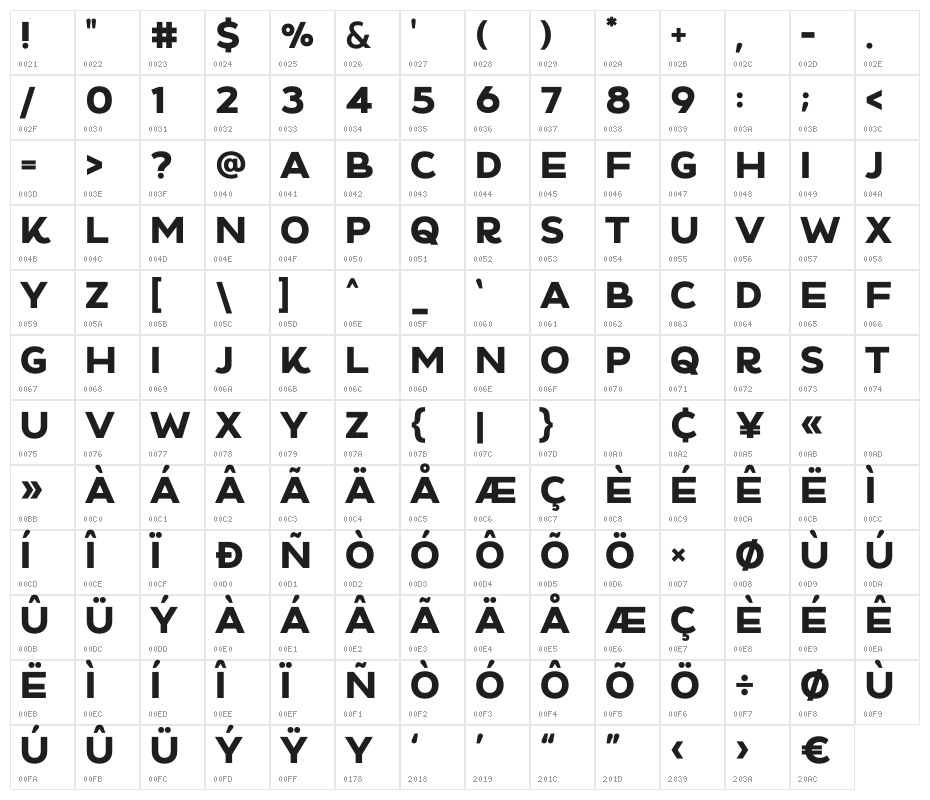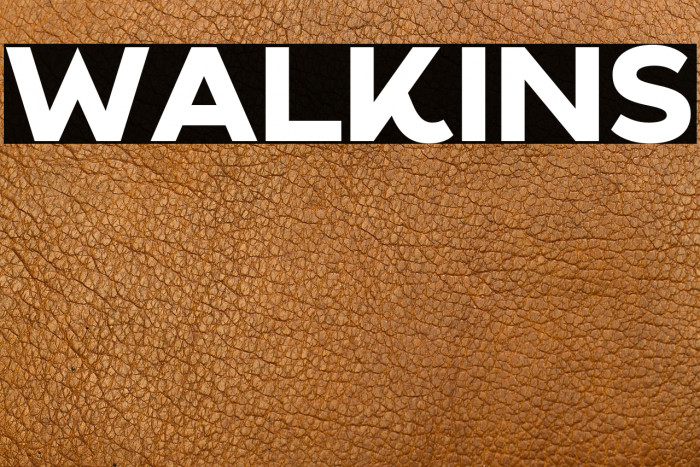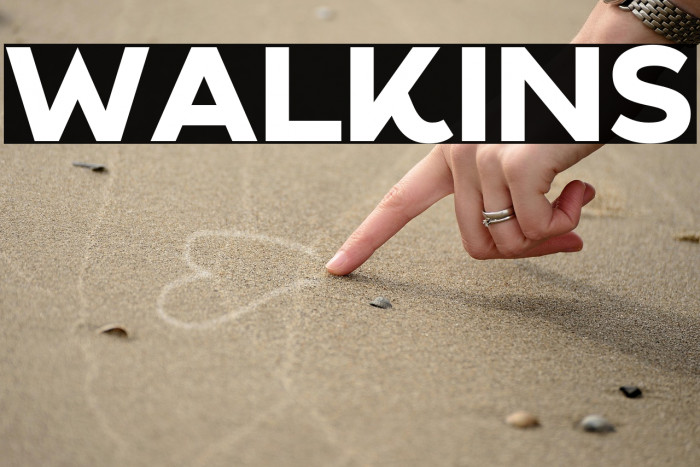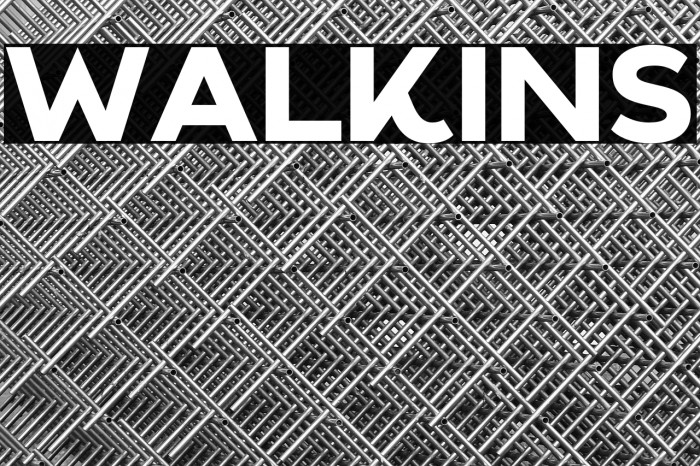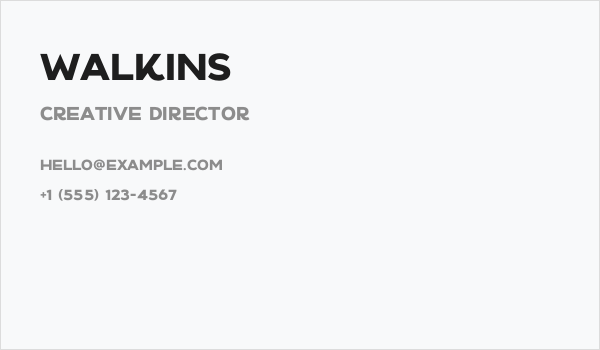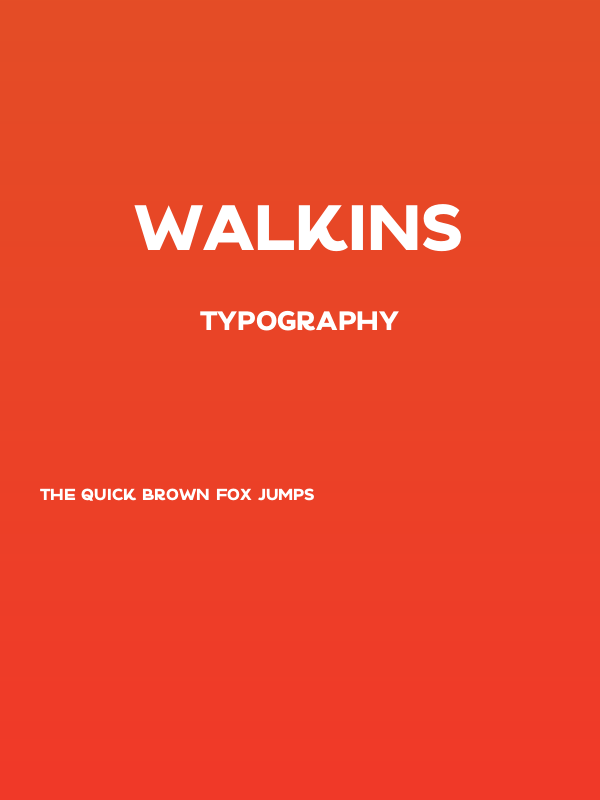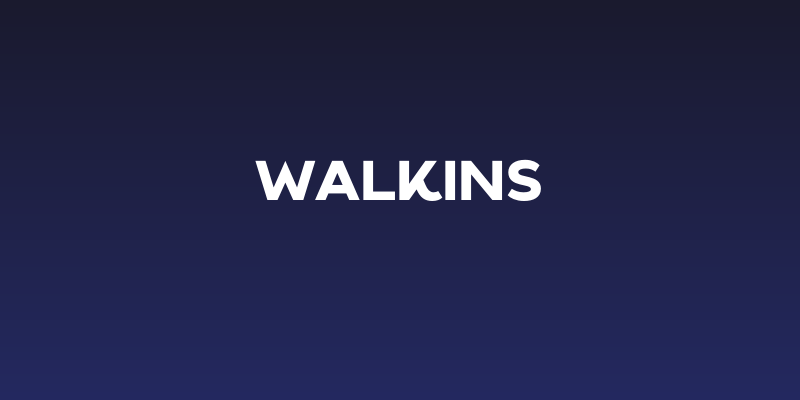
Walkins Font
Walkins Description
This font features a bold and modern sans-serif style with clean lines and a strong presence. The characters are uniformly thick, providing a consistent and solid appearance. The uppercase letters are well-proportioned, while the lowercase letters maintain a similar weight, ensuring readability. The numerals are clear and distinct, matching the overall boldness of the alphabet. Special characters are designed to complement the font's robust style, making it versatile for various applications. The font's simplicity and clarity make it suitable for both digital and print media.